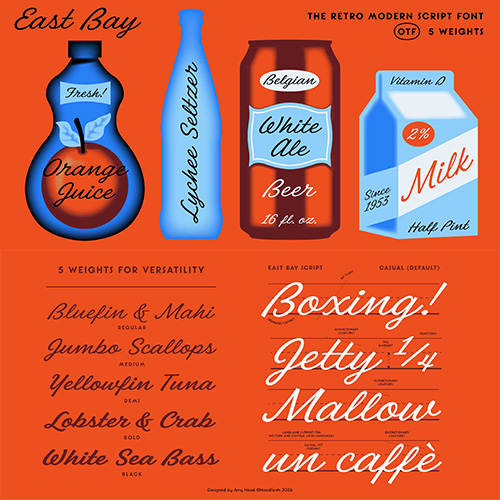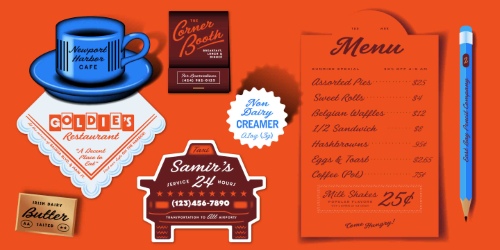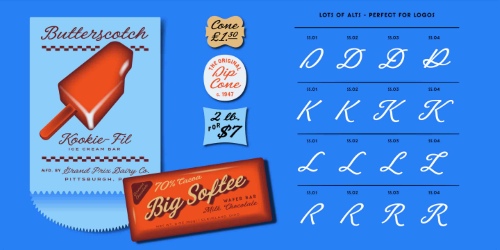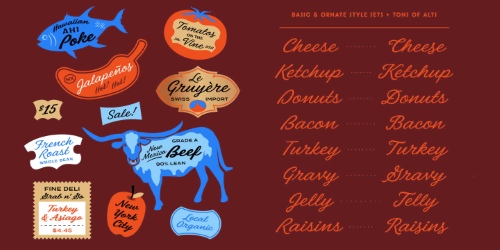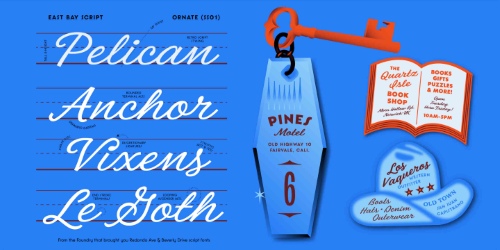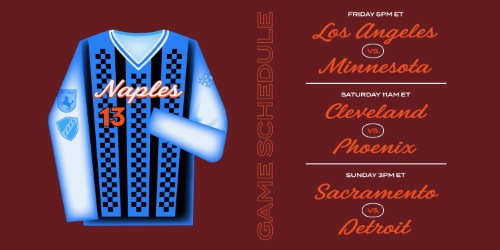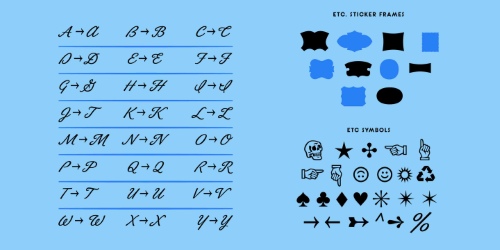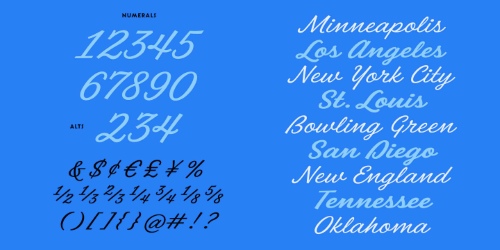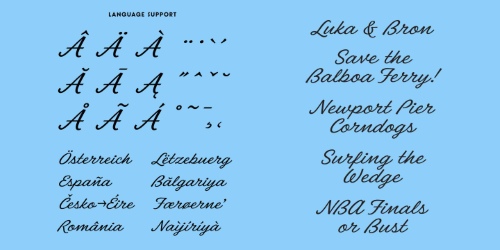
East Bay Script Typeface - 5 Styles Font Family
- East bay is a modern retro script font with a fierce slant. Its high x-height makes it a legible dream for logos, packaging, and layouts. This typeface is sure to be your new favorite.